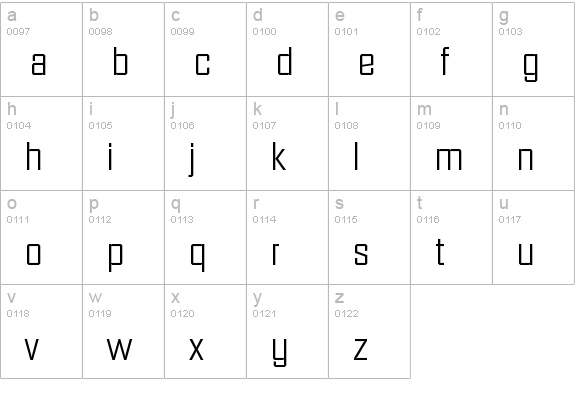
FacetLight Regular Font Details
FacetLight Regular is the standard, neutral variant in the FacetLight typeface family \xE2\x80\x94 well suited to general body text, paragraphs, and standard typographic work.
FacetLight Regular is a stunning font that effortlessly combines elegance with modernity. This typeface is perfect for adding a touch of sophistication to any design project. With its clean lines and gentle curves, FacetLight Regular is a versatile font that can be used in a variety of contexts, from branding and advertising to editorial design and packaging. One of the standout features of FacetLight Regular is its incredible legibility, making it an ideal choice for both small and large text sizes. Whether you're designing a logo or creating a poster, this font will ensure that your message is conveyed with clarity and style. Furthermore, what sets FacetLight Regular apart is its ability to evoke a sense of professionalism and refinement. Its sleek and polished appearance makes it a go-to option for designers who want to create a sophisticated and high-end look. The best part? FacetLight Regular is available for free download at FontsMarket.com. This means that you can easily access this extraordinary font without any hassle or cost. So why wait? Enhance your design projects with the timeless beauty of FacetLight Regular and make a lasting impression on your audience.